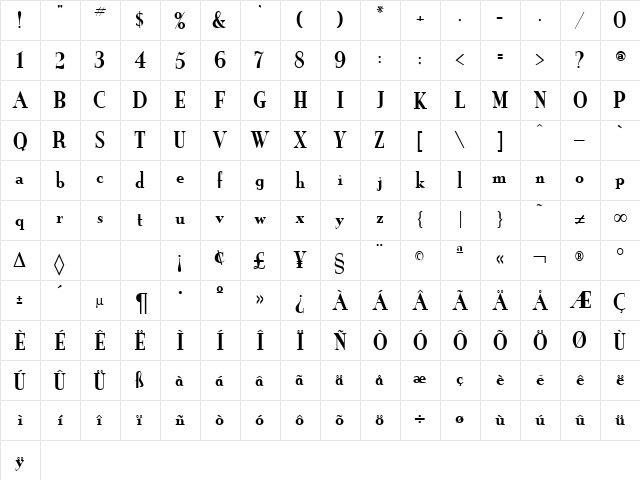
NewOrleans DB Regular
Design Context for NewOrleans DB Typeface
NewOrleans DB offers clean, dependable letterforms without strong stylistic allegiance, making it a practical choice for designers who need flexibility.